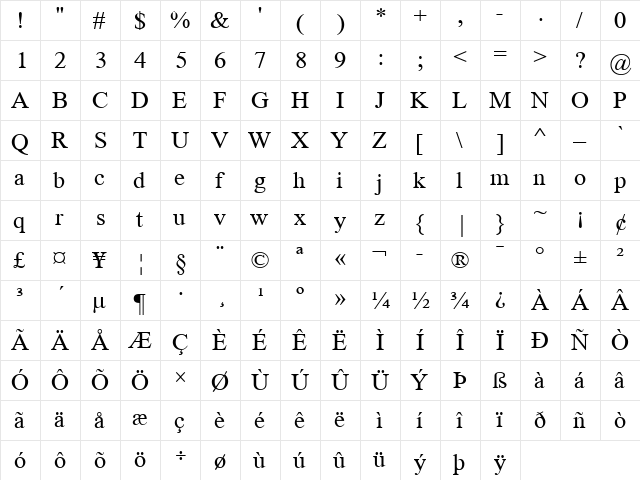
Aboriginal Serif Regular Font Preview
Aboriginal Serif Regular
Aboriginal Serif Regular Font Details
| Foundry | Chris Harvey |
| Designer | Chris Harvey |
Design Context for Aboriginal Serif Typeface
Aboriginal Serif carries the refined structure of traditional serif typography, with bracketed terminals and considered proportions that communicate credibility and craft.
Pro Tip: Use Aboriginal Serif for editorial body copy and considered headline work. Pair with a neutral sans for UI elements or captions to create a classic hierarchy.